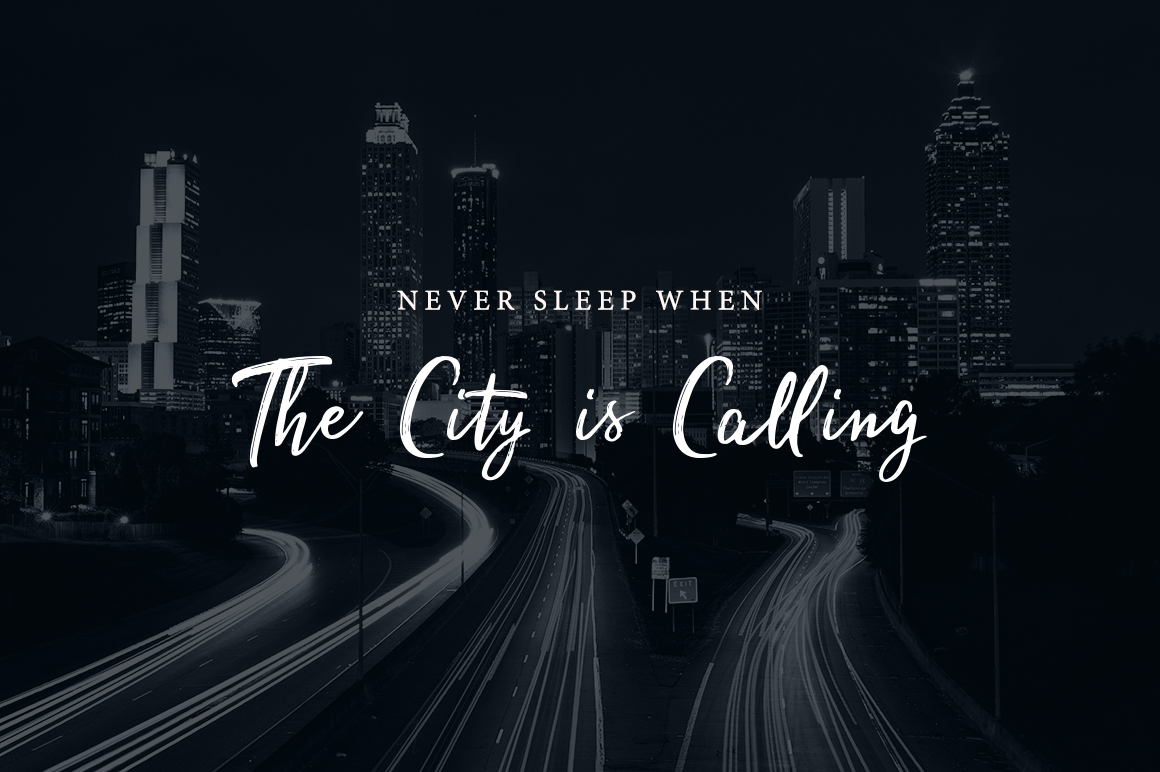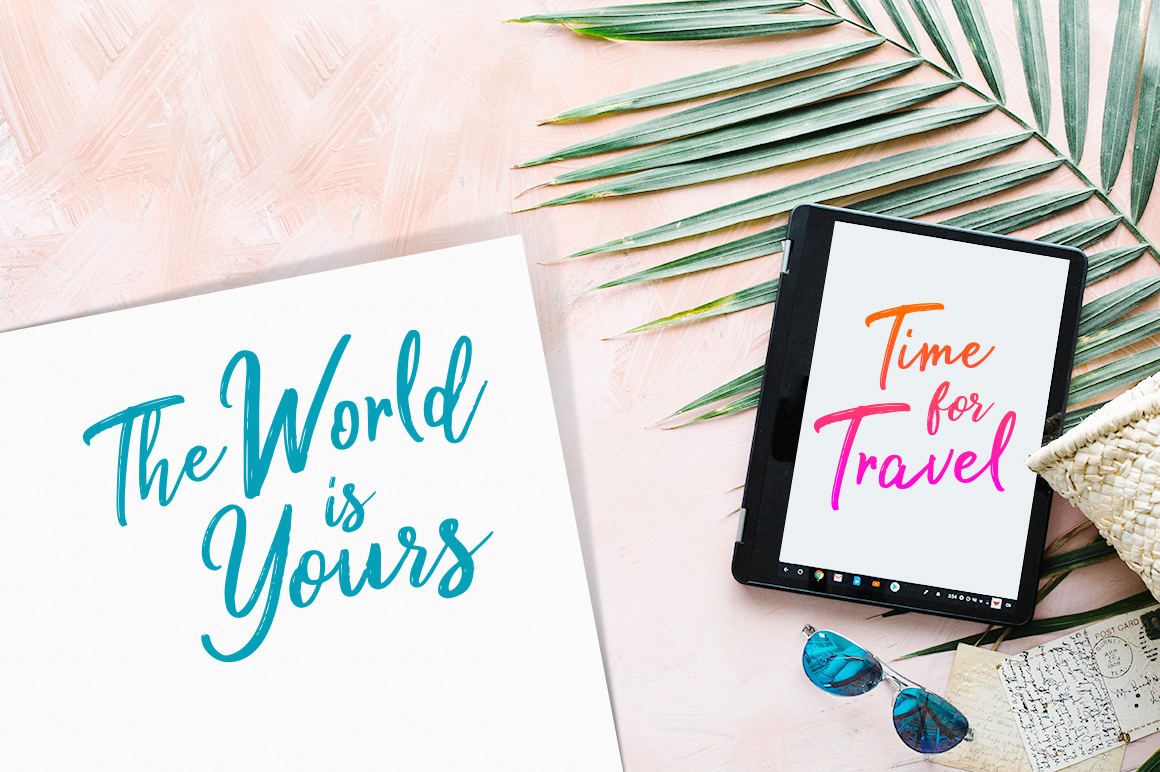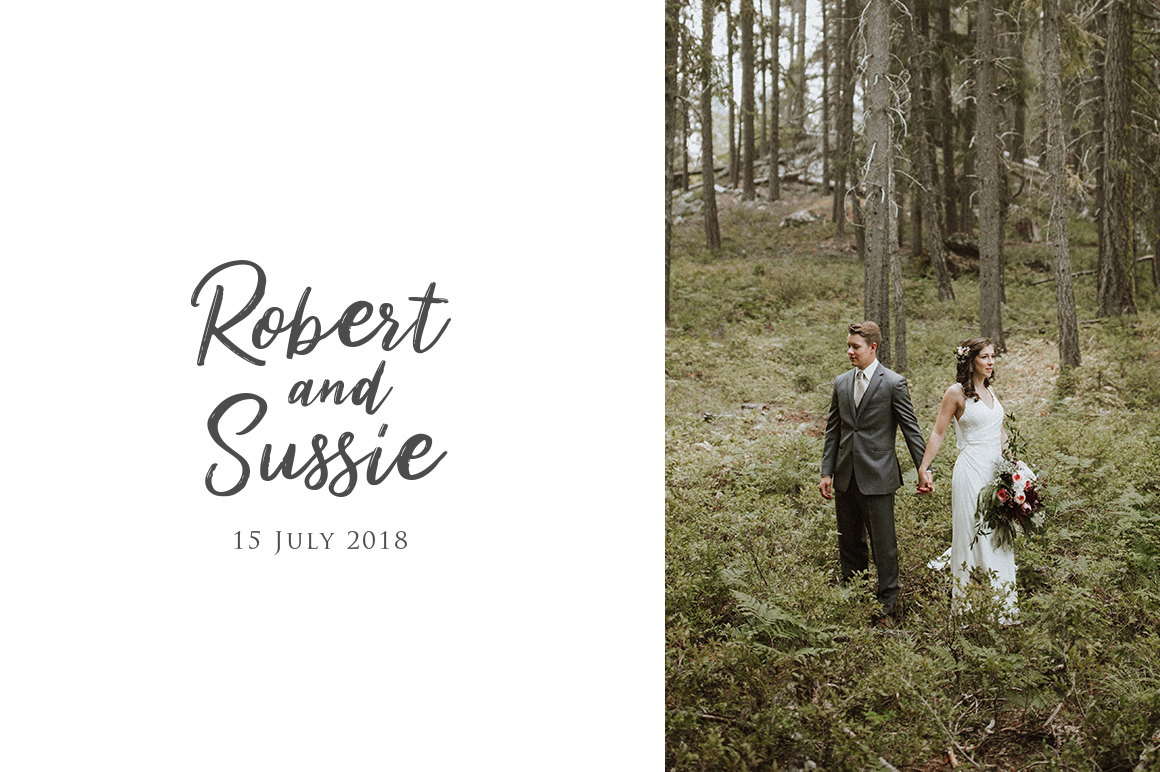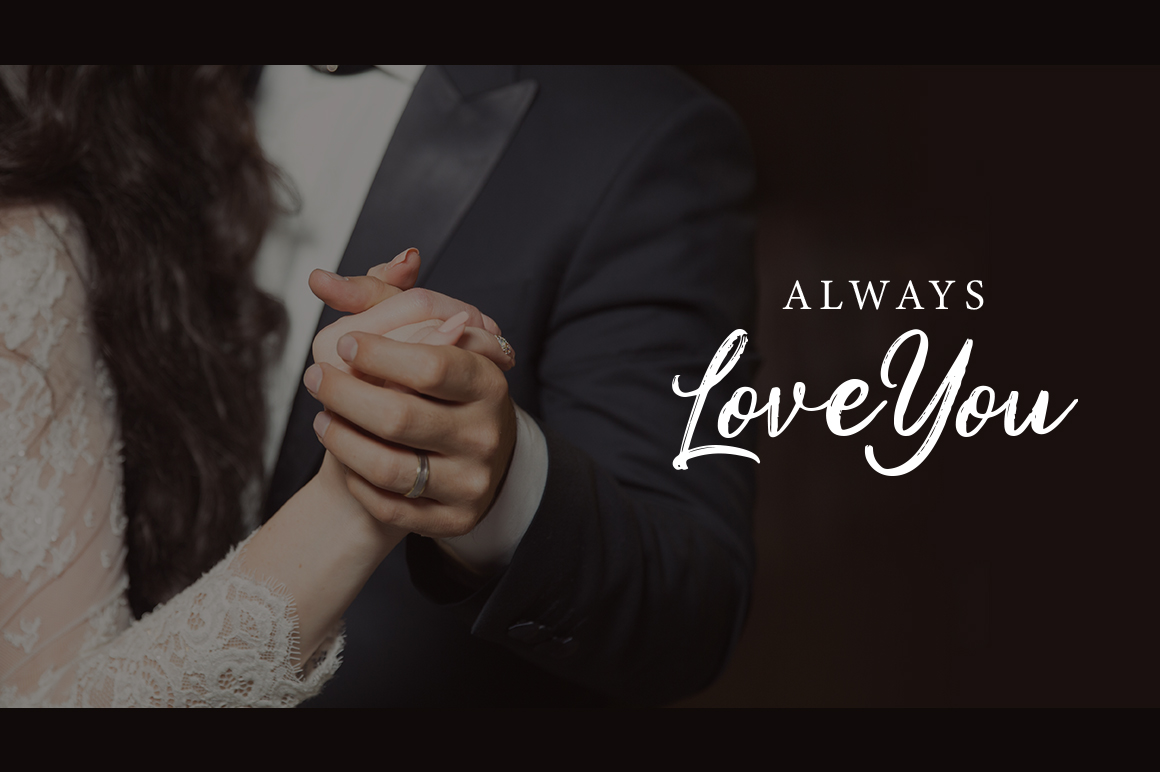
Milea
Introducing Milea Handwritten Brush Font, script with a natural dry brush stroke make it beautiful, and the stroke of hand quickly.
Milea is perfect for signature, branding, wedding, fashion, photography title, poster, social media, ad banner, book cover, packaging, handwritten quotes, greeting cards, and advertising. With 2 fonts in a commercial package, you can create more easily with alternatives to each letter and make it as if you wrote it yourself. This free typeface was designed by talented Weape Design. If you like it don’t forget to check out the full version.